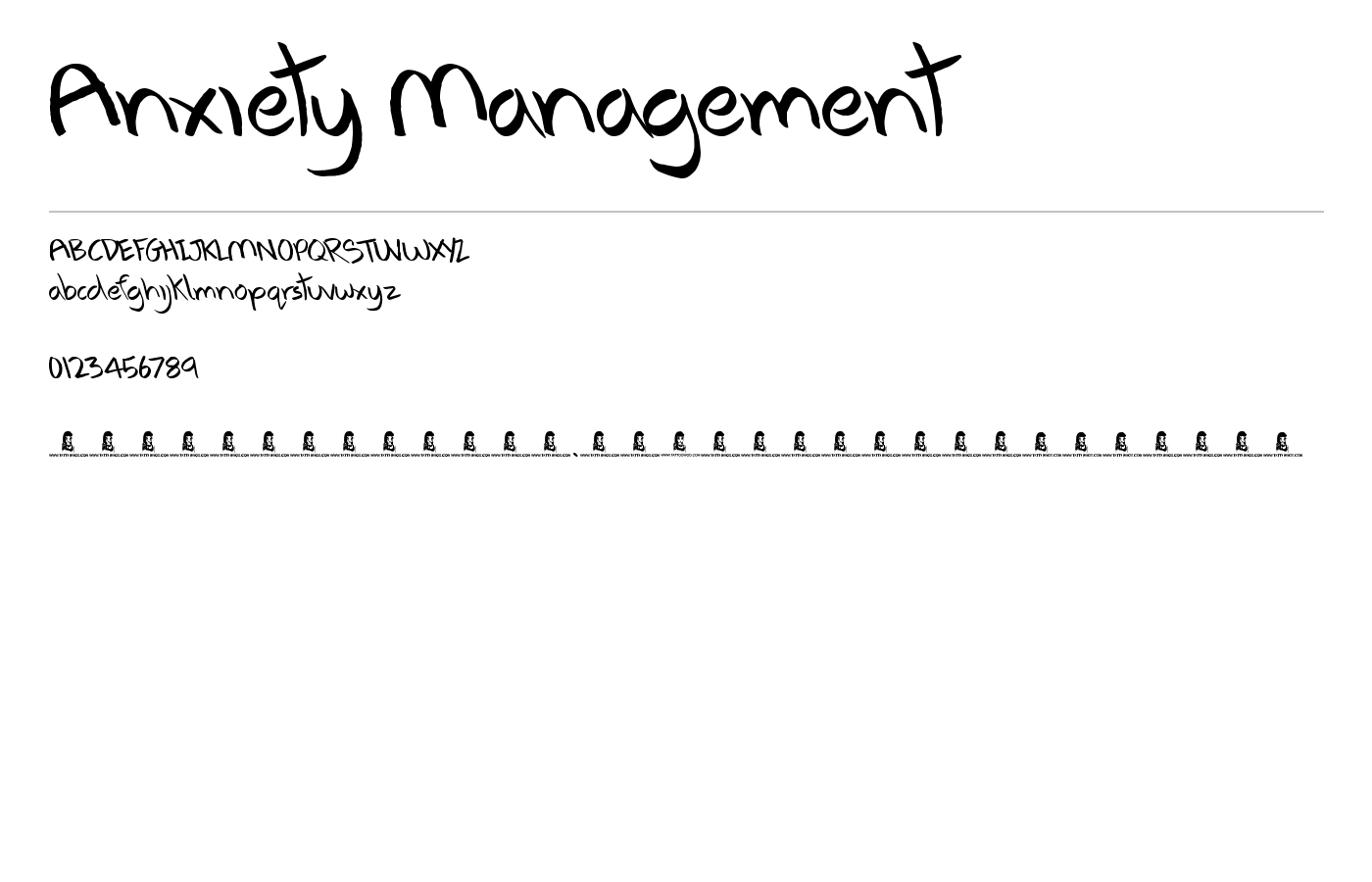
Anxiety Management Font is a playful, handwritten-style font with a casual and slightly quirky feel. Its irregular shapes and varying stroke widths give it a personal, informal touch that works well for creative projects, children’s materials, or anything needing a friendly, approachable vibe. This font is best suited for headlines, posters, and packaging where a relaxed, human quality is desired.
Anxiety Management Font
About Anxiety Management Font